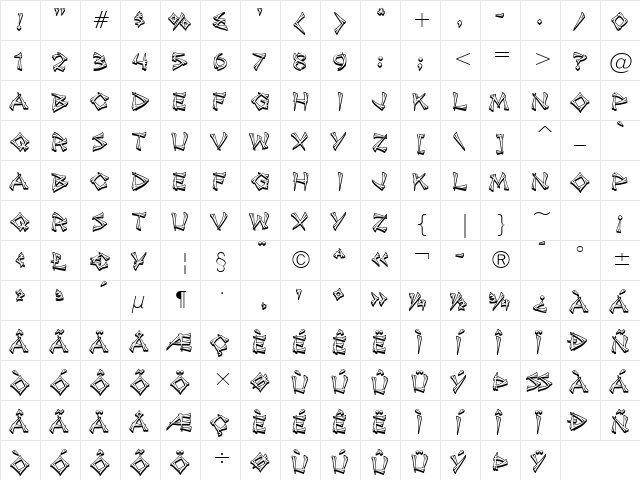
Jade Monkey BTN Split Shadow Regular
Design Context for Jade Monkey BTN Split Shadow Typeface
Jade Monkey BTN Split Shadow is built around its visual character rather than neutral utility — its distinctive forms are designed to make an impression at display sizes.
Font Pairing: Pair with a clean neutral sans-serif for body copy to let Jade Monkey BTN Split Shadow's character lead without overwhelming the composition.
Pro Tip: Use Jade Monkey BTN Split Shadow exclusively at display sizes — it was designed to be seen, not read at length. Let a neutral companion handle body copy.